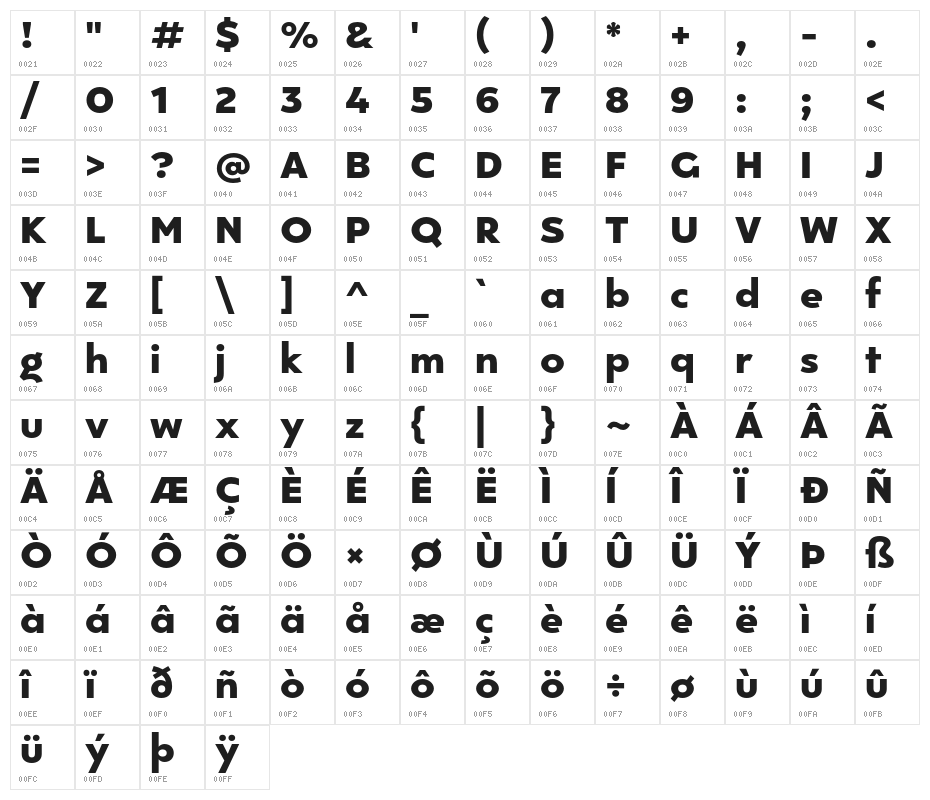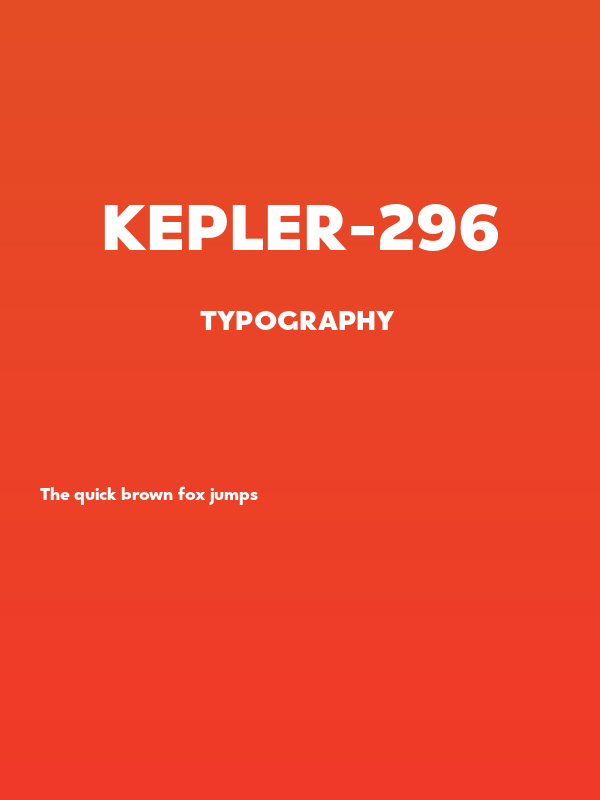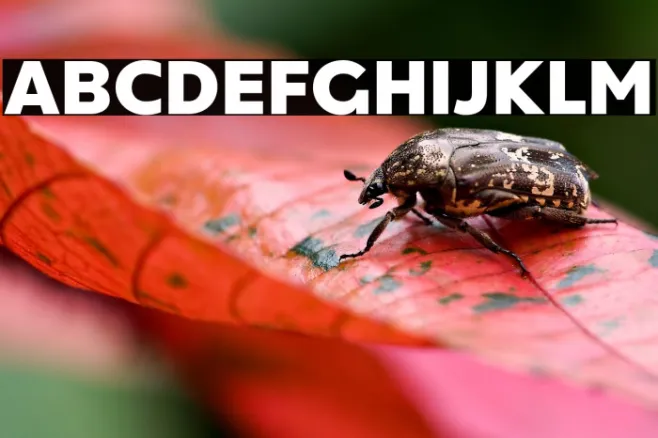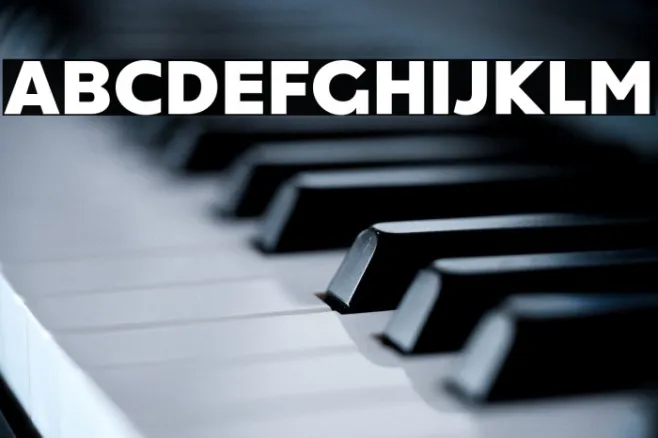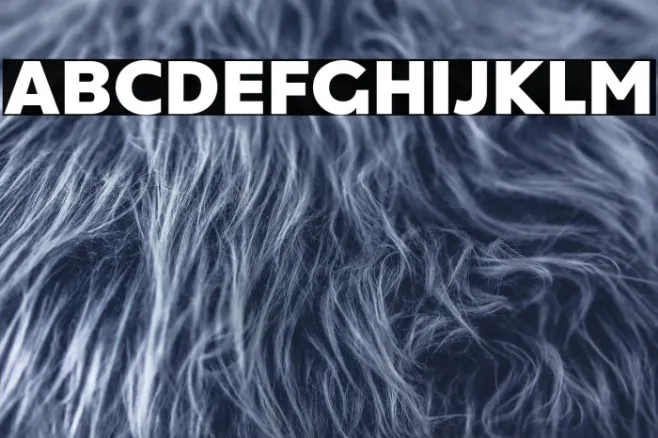
Kepler-296 Font
Kepler-296 Description
This font features bold, geometric letterforms with a modern and clean aesthetic. The uppercase letters are strong and assertive, while the lowercase letters maintain a consistent weight and style, offering a harmonious balance. The numerals are clear and easy to read, making them suitable for various applications. Special characters are well-defined, adding versatility to the font. The overall design is sleek and contemporary, making it ideal for projects that require a bold statement.
| Use Case | Headlines, Logos, Advertising |
| Proposed Projects | Ideal for branding, advertising, headlines, and digital media projects that require a strong visual impact. |